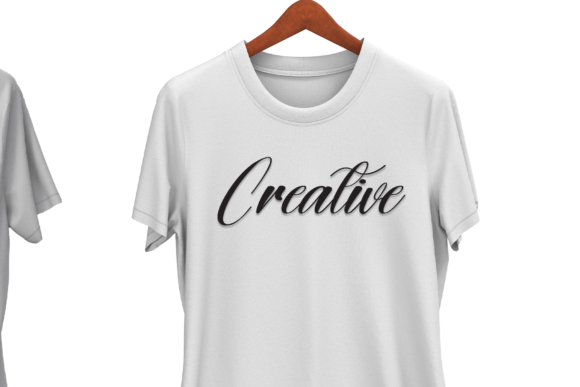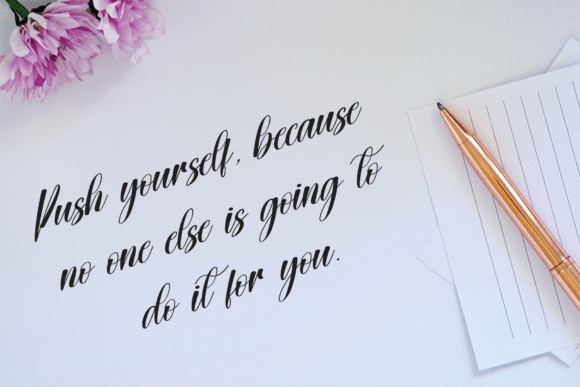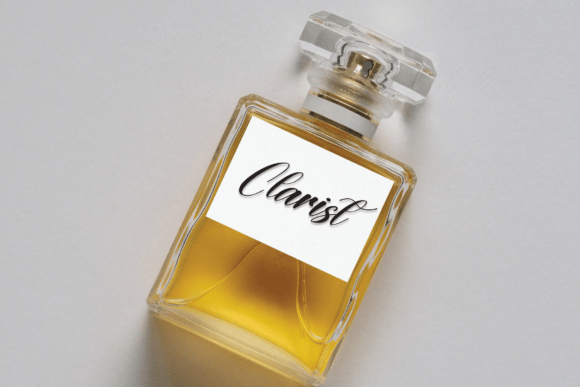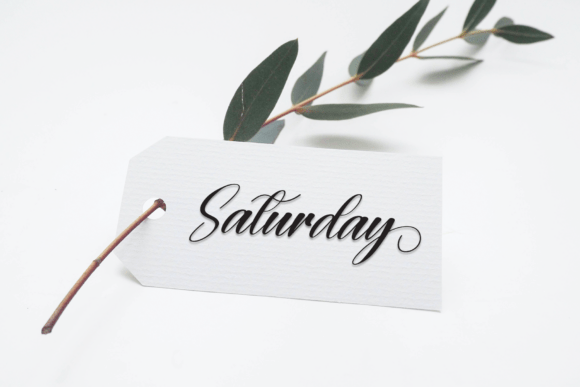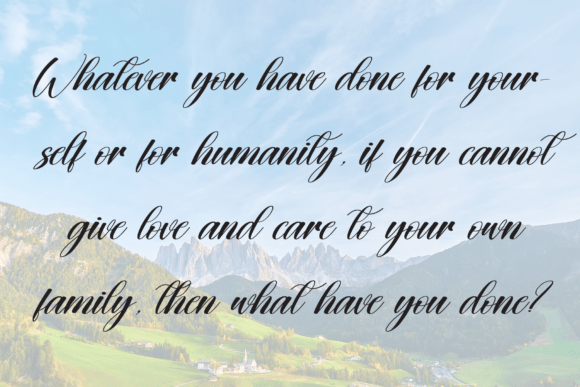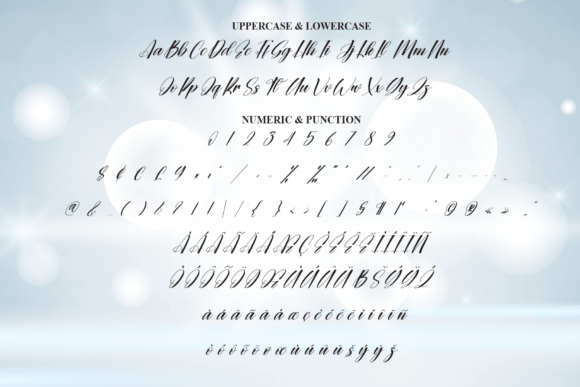
Introducing Brighty Font: The Epitome of Elegant and Playful Typography
In the world of typography, few fonts manage to strike a perfect balance between elegance and playfulness. Brighty Font is one such exquisite italic handwritten script that effortlessly combines sophistication with a light, airy charm. With its graceful, fine lines and natural-looking connections, Brighty Font is an excellent choice for designers and crafters looking to add a touch of refinement and authenticity to their creations.
The Characteristics of Brighty Font
Brighty Font boasts a unique set of characteristics that make it stand out from other typography options. Its gentle slant and flowing style evoke a sense of femininity and delicacy, making it perfect for designs that require a soft, elegant touch. The font’s fine lines and natural-looking connections give it a light, airy feel that is both sophisticated and beautiful.
Ideal Uses for Brighty Font
Brighty Font’s versatility makes it suitable for a wide range of design applications. Some of the ideal uses for this font include:
- Delicate Wedding Stationery: Brighty Font’s elegant and refined style makes it perfect for wedding invitations, save-the-date cards, and other wedding stationery.
- Feminine Social Media Graphics: The font’s playful and feminine charm makes it an excellent choice for social media graphics, such as Instagram posts and Facebook covers.
- Elegant Product Labels: Brighty Font’s sophisticated style makes it suitable for product labels that require a touch of elegance and refinement.
- Handwritten Touch: The font’s natural-looking connections and flowing style make it ideal for designs that require a light, beautiful, and authentic hand-written touch.
Why Choose Brighty Font?
There are several reasons why designers and crafters should consider Brighty Font for their projects:
- Unique and Versatile: Brighty Font’s unique blend of elegance and playfulness makes it a versatile typography option that can be used in a wide range of design applications.
- Elegant and Refined: The font’s sophisticated style makes it perfect for designs that require a touch of refinement and elegance.
- Easy to Read: Brighty Font’s clear and flowing style makes it easy to read, even at smaller font sizes.
- High-Quality Design: The font is designed with high-quality craftsmanship, ensuring that it looks beautiful and professional in any design.
Tips for Using Brighty Font
To get the most out of Brighty Font, here are some tips for using it in your designs:
- Pair with Neutral Backgrounds: Brighty Font looks best on neutral backgrounds that allow the font’s elegant style to shine.
- Use for Headings and Titles: The font’s sophisticated style makes it perfect for headings and titles, adding a touch of elegance to any design.
- Experiment with Colors: Brighty Font looks beautiful in a range of colors, so don’t be afraid to experiment and find the perfect hue for your design.
Brighty Font is an exquisite italic handwritten script that perfectly balances elegance and playfulness. With its graceful, fine lines and natural-looking connections, this font conveys a light, airy, and sophisticated charm that makes it perfect for a wide range of design applications. Whether you’re a designer or crafter, Brighty Font is an excellent choice for anyone looking to add a touch of refinement and authenticity to their creations.